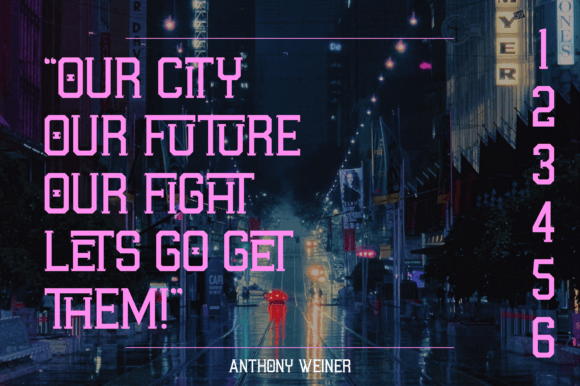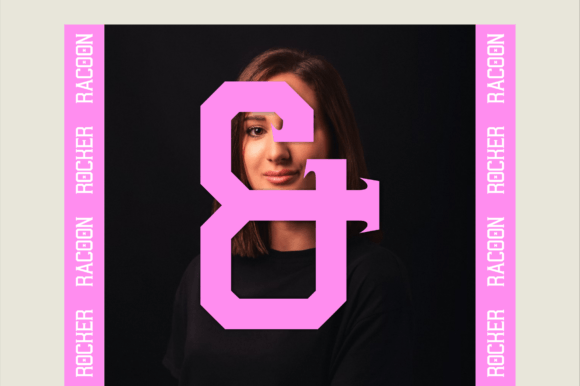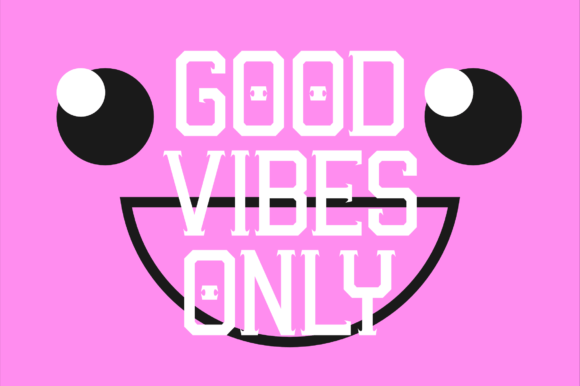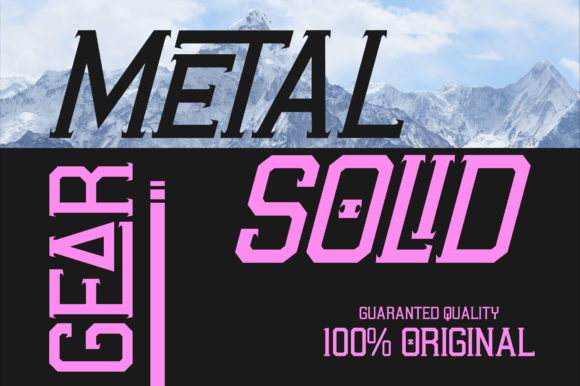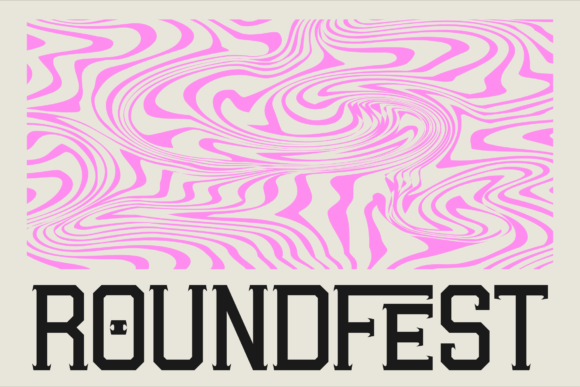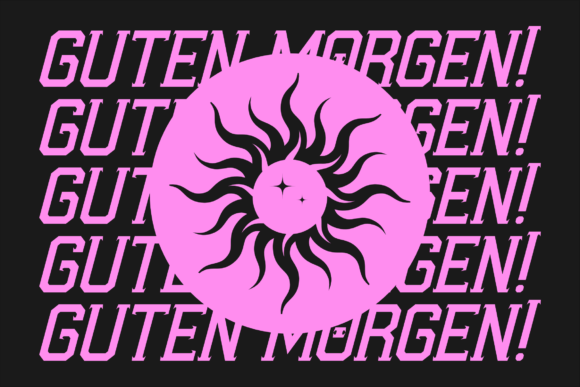
The Designer’s Delight: Brocket Flaming Font
I still remember the time I was working on a wedding invitation project, and I just couldn’t seem to find the perfect font. My client wanted something elegant, bold, and eye-catching, but not too over-the-top. I scoured the internet, tried out dozens of fonts, but nothing seemed quite right. That was until I stumbled upon Brocket Flaming Font. ✨ It was love at first sight! The elegant serifs, the bold yet refined style – it was exactly what I needed.
• ✅ Elegant and Bold: Brocket Flaming Font is the perfect combination of elegance and boldness. It’s perfect for making a statement.
• ✨ Versatile: This font is incredibly versatile – use it for wedding invitations, stationery art, social media posts, and more!
• 💻 Easy to Read: Despite its bold style, Brocket Flaming Font is surprisingly easy to read, even in smaller sizes.
• 🎨 Highly Customizable: With its wide range of OpenType features, glyphs, and stylistic alternates, you can customize Brocket Flaming Font to fit your design needs.
While Brocket Flaming Font is an amazing font, there are a few things to keep in mind: ⚠️ It may not be the best choice for very small text sizes, as the serifs can get a bit lost. 🤔 Additionally, some of the more intricate OpenType features may not work properly in all design programs.
The Story Behind Brocket Flaming Font
Brocket Flaming Font was designed by a team of typographers who wanted to create a font that was both elegant and bold. Inspired by classic serif fonts, they added a modern twist to create a truly unique and versatile font. The result is a font that’s perfect for a wide range of design projects, from wedding invitations to social media posts.
Font Name Brocket Flaming Font
Author Storytype Studio
Q: What is Brocket Flaming Font?
A: Brocket Flaming Font is an elegant and bold serif font perfect for a wide range of design projects.
Q: Is Brocket Flaming Font easy to read?
A: Yes, despite its bold style, Brocket Flaming Font is surprisingly easy to read, even in smaller sizes.
Q: Does Brocket Flaming Font come with OpenType features?
A: Yes, Brocket Flaming Font comes with a wide range of OpenType features, glyphs, and stylistic alternates, making it highly customizable.